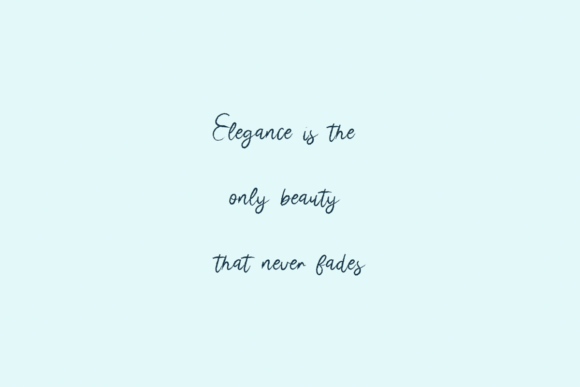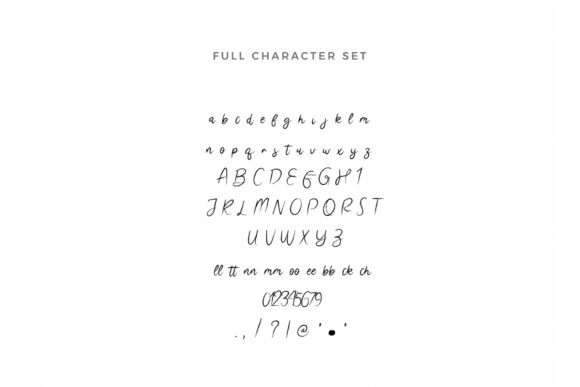
Discover the Charm of Fabienne Font: A Handcrafted Script Font
Immerse yourself in the world of typography, where art meets elegance, with Fabienne – a one-of-a-kind, exquisitely handcrafted script font. Hand-drawn with love and precision, Fabienne has a distinct essence that makes it a heart-stealing choice for personalizing your design projects. In this article, we’ll dive into the beauty and uniqueness of Fabienne, a font that perfectly embodies the beauty of handwritten and hand-lettered artistry.
The Story Behind Fabienne
Fabienne is more than just a font – it’s a work of art. Crafted with precision and passion, this hand-drawn script font brings a touch of elegance and sophistication to any design project. The creator of Fabienne poured their heart and soul into designing a font that would stand out from the rest, and the result is a strikingly beautiful addition to any designer’s toolkit.
What Makes Fabienne Unique?
So, what sets Fabienne apart from other fonts? The answer lies in its unique character. Fabienne boasts a distinct essence that shines through in its elegant and flowing lines. Each letter is carefully crafted to create a sense of movement and fluidity, making it perfect for designs that require a touch of sophistication. Whether you’re working on a branding project, a wedding invitation, or a packaging design, Fabienne is sure to make your project stand out.
The Beauty of Handwritten and Hand-Lettered Artistry
Fabienne is a perfect representation of the beauty of handwritten and hand-lettered artistry. In an era where digital fonts are a dime a dozen, Fabienne brings a breath of fresh air with its organic and human touch. The font’s hand-drawn nature gives it a unique charm that is hard to replicate with machine-generated fonts. With Fabienne, you can add a personal touch to your designs, making them more relatable and engaging.
Why Designers and Crafters Love Fabienne
Designers and crafters alike fall in love with Fabienne for its versatility and elegance. Here are just a few reasons why:
- Perfect for Branding: Fabienne’s unique character makes it an excellent choice for branding projects. Use it to create a memorable logo or add a touch of elegance to your business cards.
- Ideal for Wedding Designs: Fabienne’s elegant and sophisticated vibe makes it perfect for wedding invitations, stationery, and other wedding-related designs.
- Great for Packaging: Add a touch of luxury to your packaging designs with Fabienne. Its unique character will make your product stand out on store shelves.
- Versatile: Fabienne is a versatile font that can be used for a wide range of design projects, from digital designs to print materials.
Tips for Using Fabienne in Your Designs
To get the most out of Fabienne, here are a few tips to keep in mind:
- Use it sparingly: While Fabienne is a beautiful font, it’s best used sparingly. Use it for headings or titles to add a touch of elegance to your design.
- Experiment with colors: Fabienne looks great in a variety of colors. Experiment with different colors to find the one that works best for your design.
- Pair it with other fonts: Fabienne pairs well with other fonts. Try pairing it with a sans-serif font for a striking contrast.
In conclusion, Fabienne is a one-of-a-kind, handcrafted script font that brings a touch of elegance and sophistication to any design project. Its unique character, hand-drawn nature, and versatility make it a heart-stealing choice for designers and crafters alike. Whether you’re working on a branding project, a wedding invitation, or a packaging design, Fabienne is sure to make your project stand out. So, why settle for ordinary fonts when you can have a strikingly beautiful addition to your designer’s toolkit? Give Fabienne a try today and discover the charm of handcrafted typography.